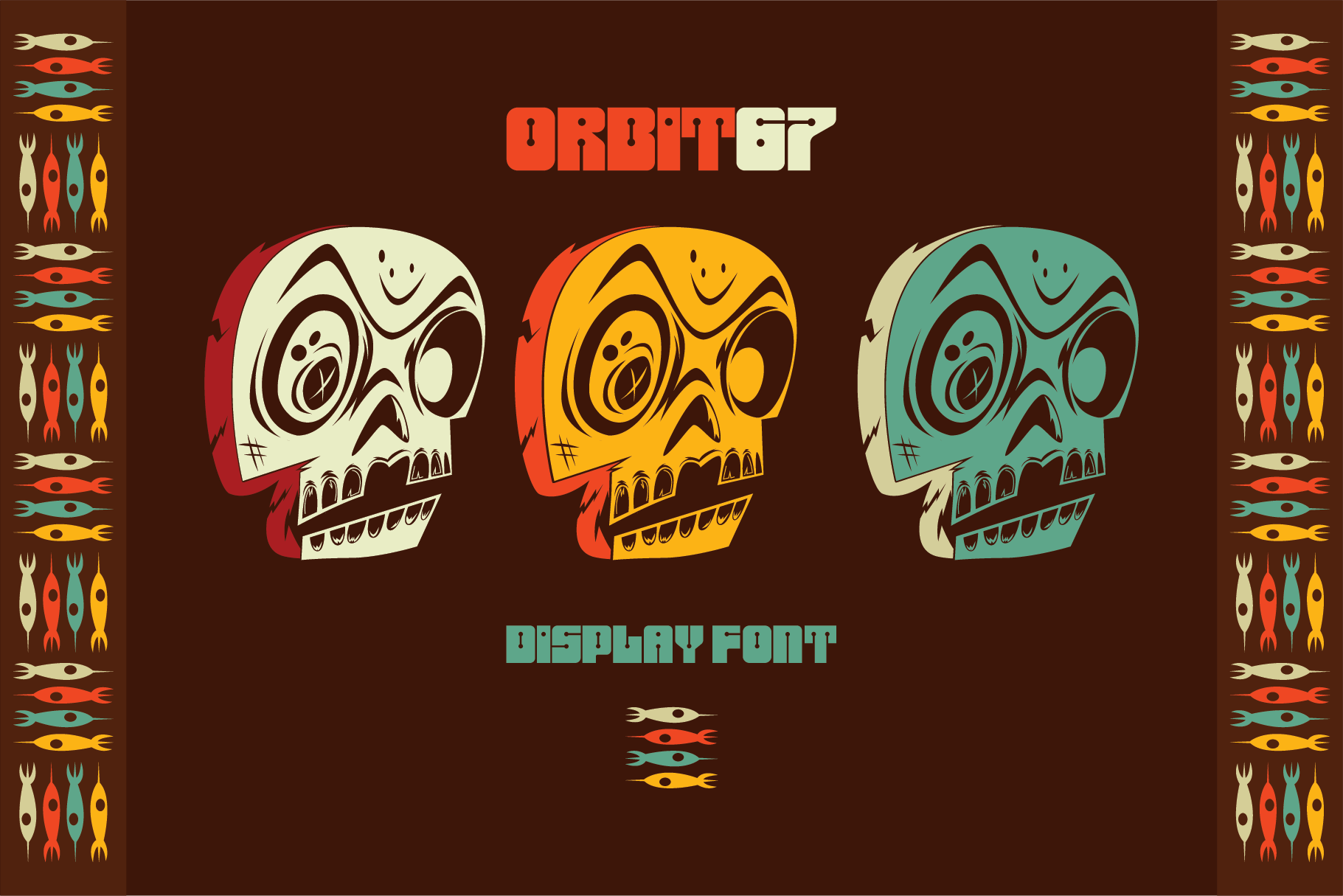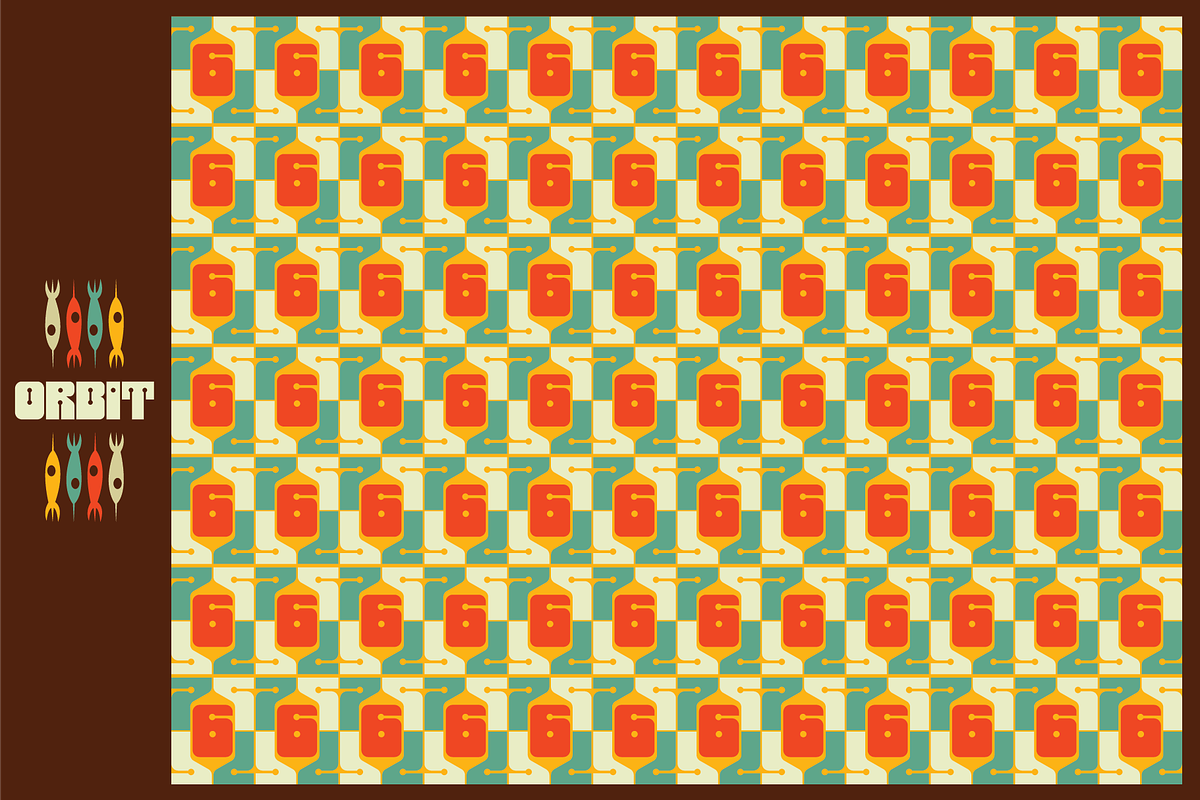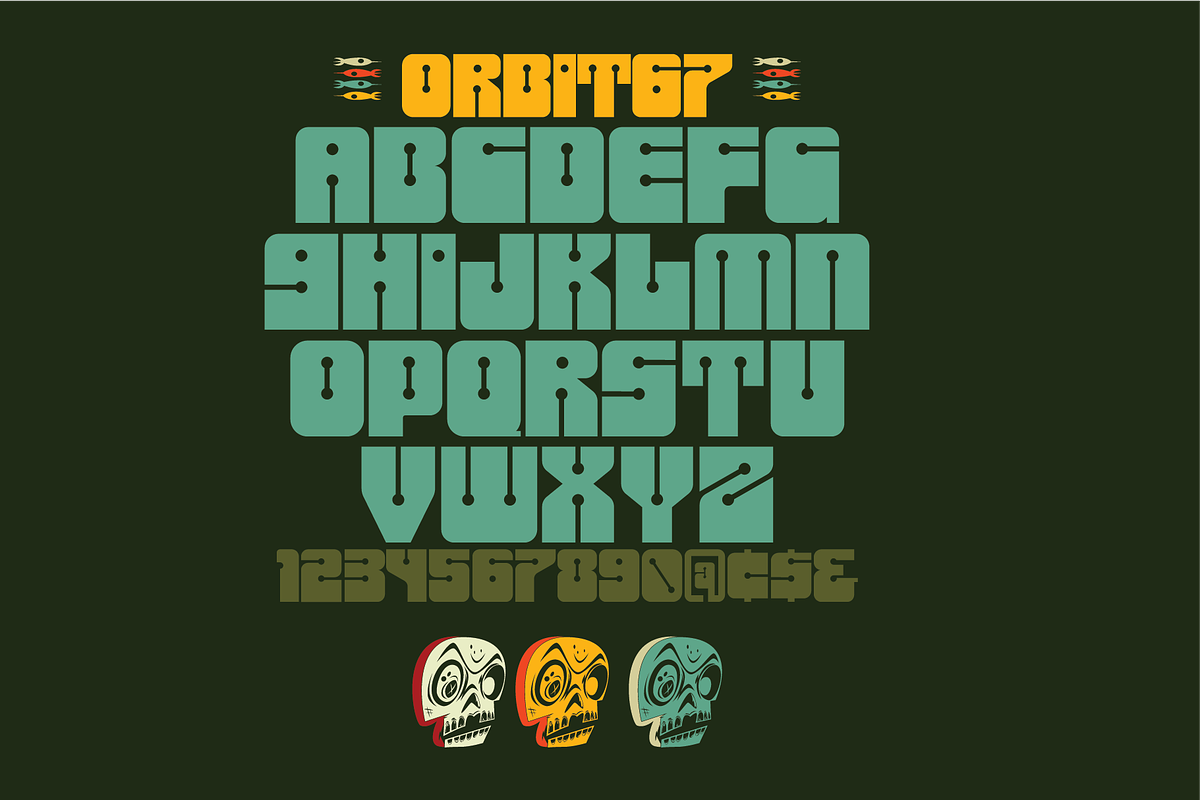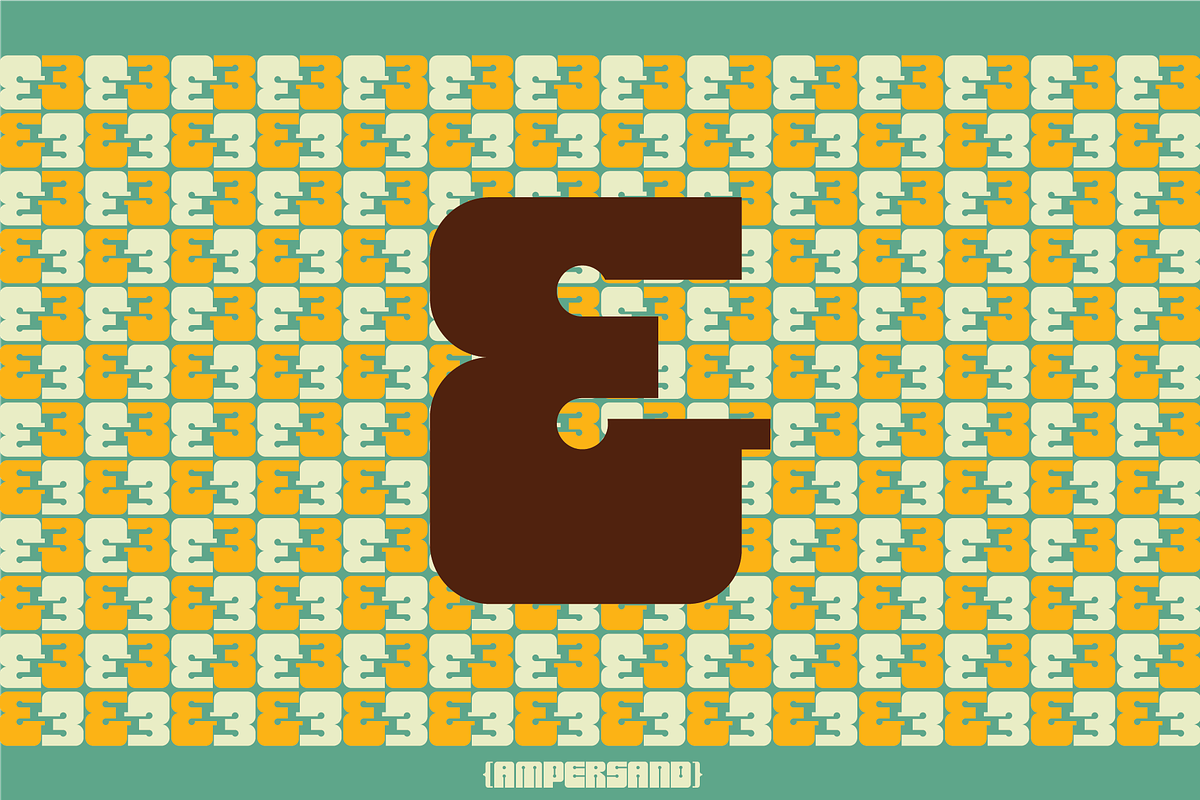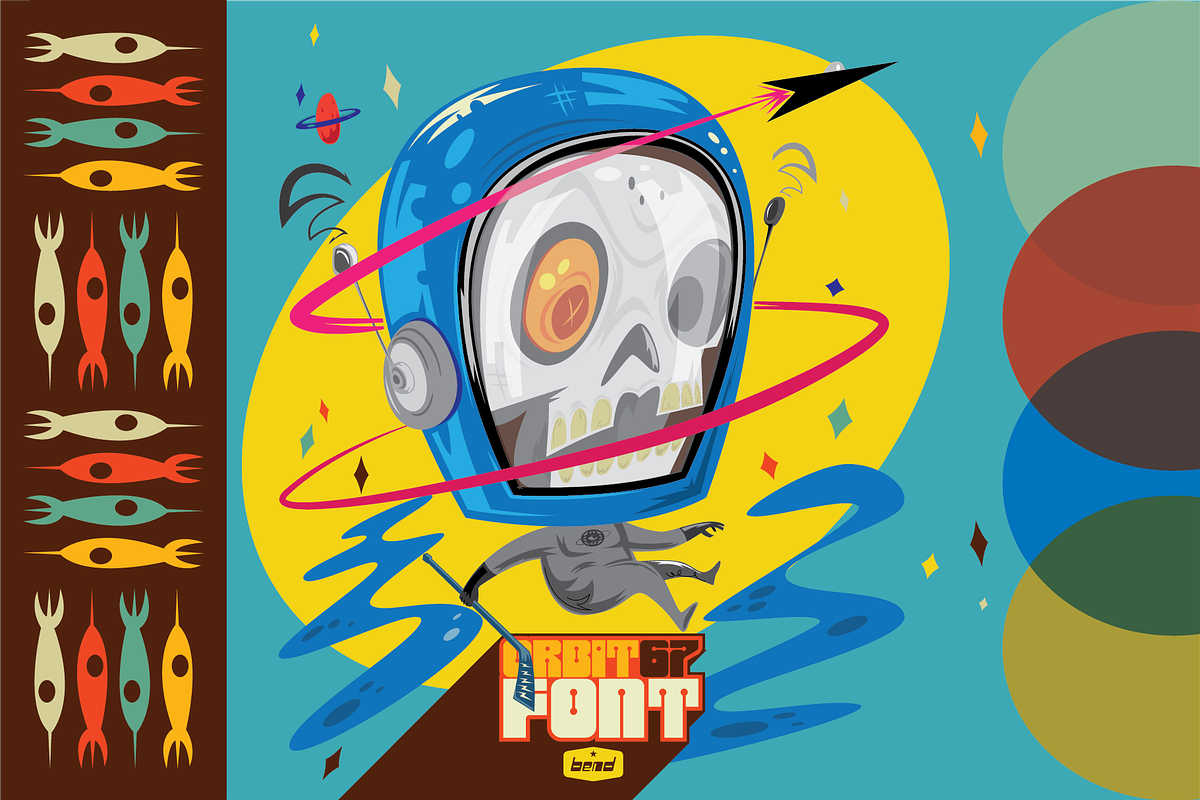
Orbit67 | Display Font
My passion for constructing things has been a constant in my life, and it feels as though my journey in art and design was destined from the start. I find beauty in both chaos and order, reveling in the delicate balance between the two. Orbit 67 emerged from a straightforward concept: employing minimal shapes and ideas to create something both simple and distinctive. Whether I've truly captured either aspect remains uncertain, but the final outcome is a typeface versatile enough for various applications when the project demands. I sincerely hope you find it enjoyable